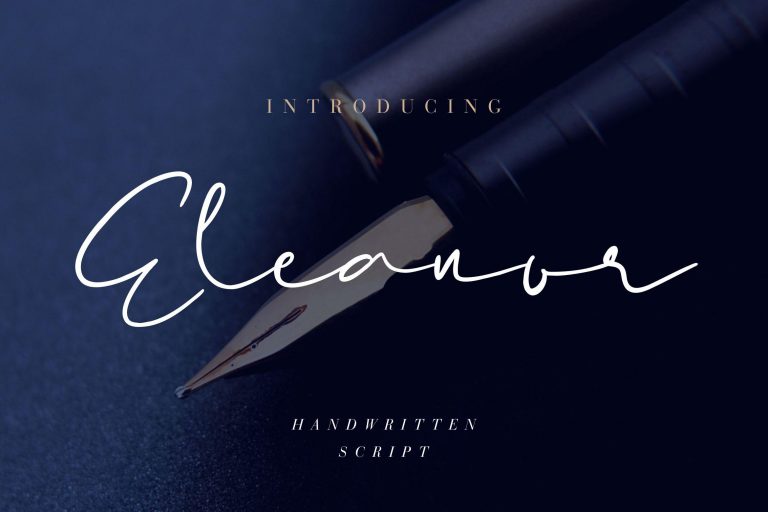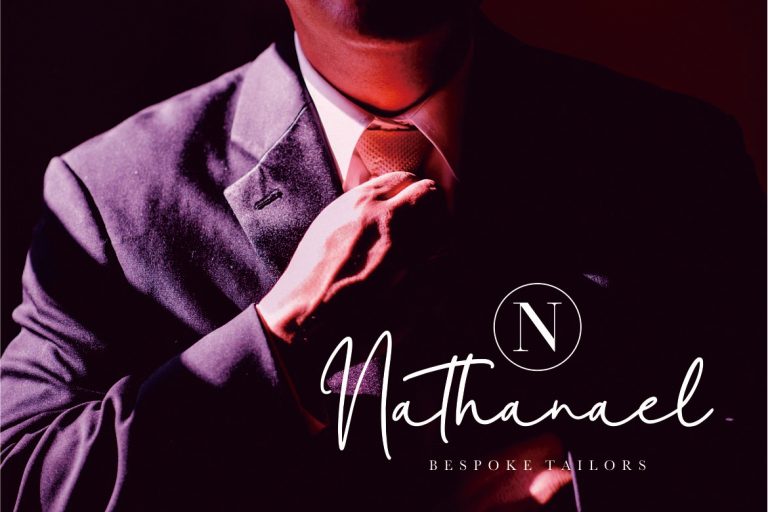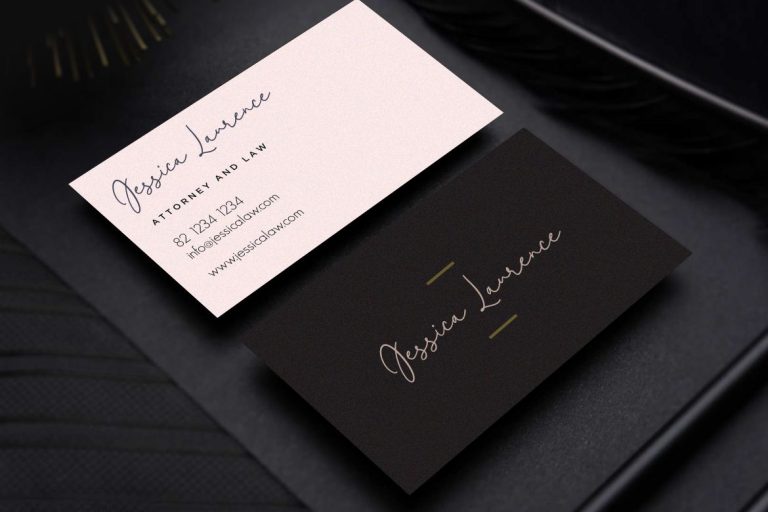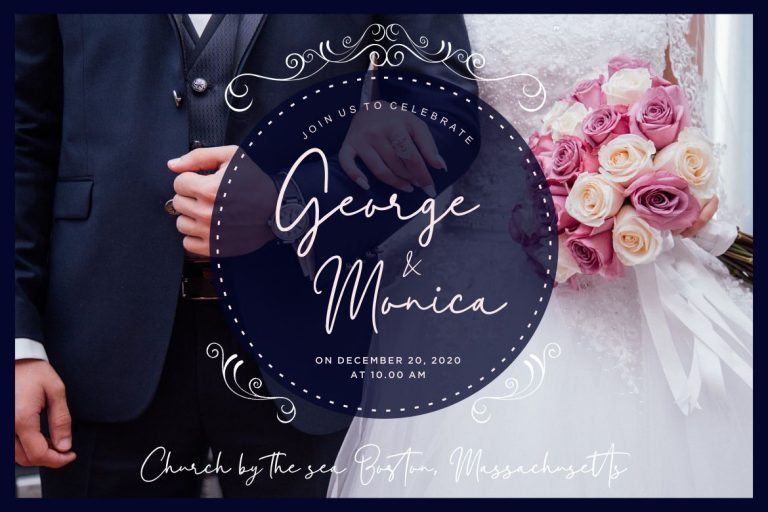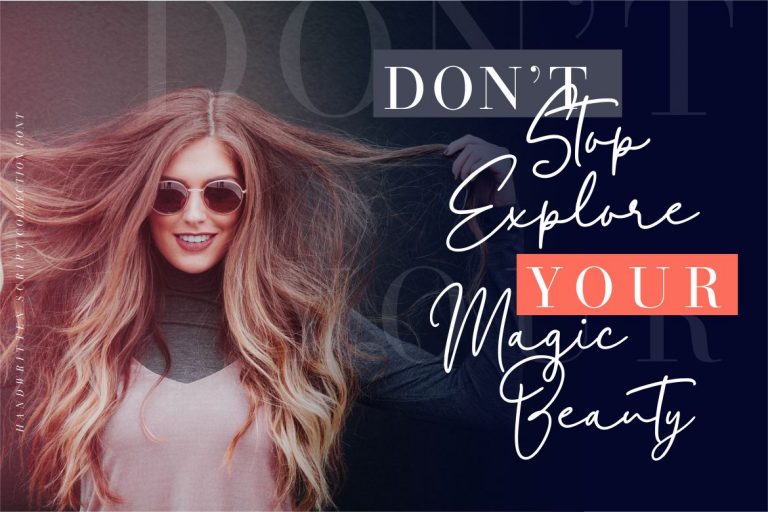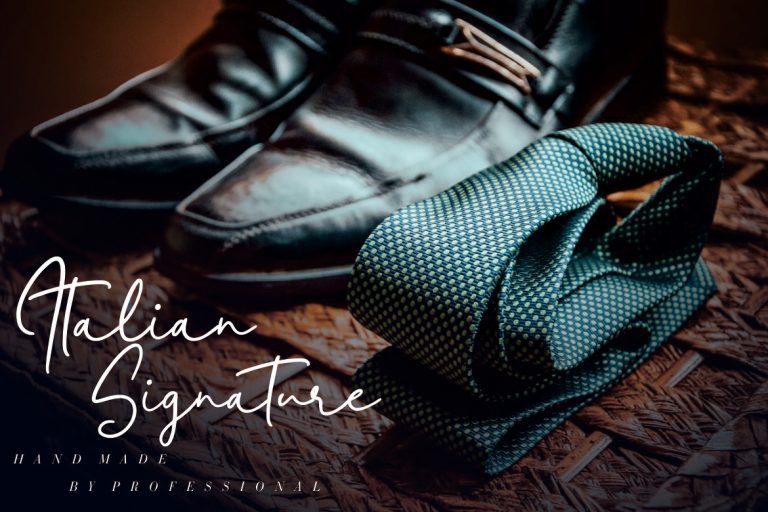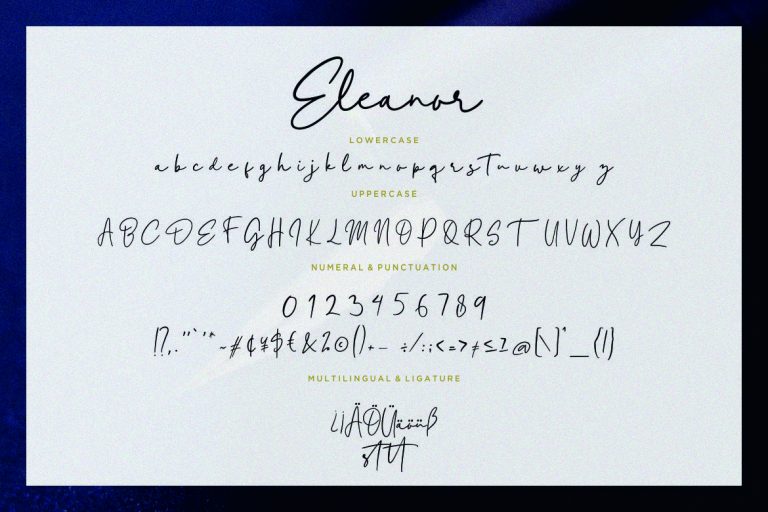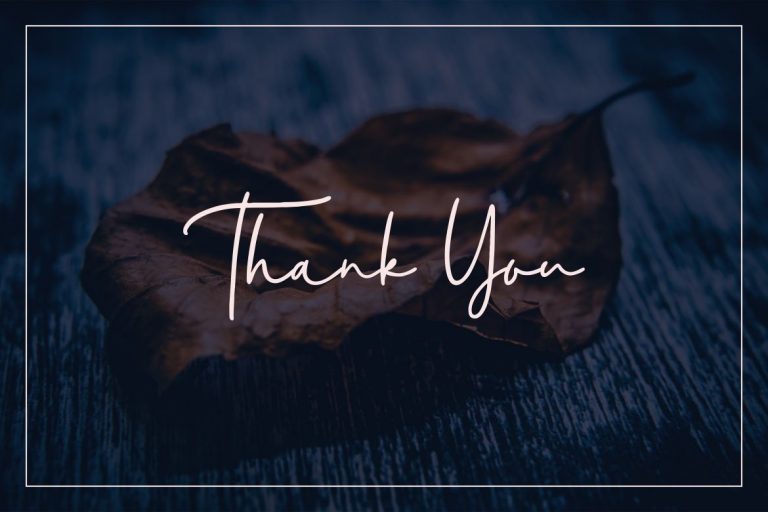
Eleanor Handwritten Script is allows you to create stunning and easy hand-lettering in an instant where you can achieve the feeling of handwritten letters.
Eleanor Handwritten Script is perfect for branding projects, logo, wedding designs, social media posts, advertisements, product packaging, product designs, label, photography, watermark, invitation, stationery and any projects that need handwriting taste.
- Standard glyphs
- Ligature
- Fonts include multilingual support for; ä ö ü Ä Ö Ü ß ¿ ¡
Eleanor Handwritten Script